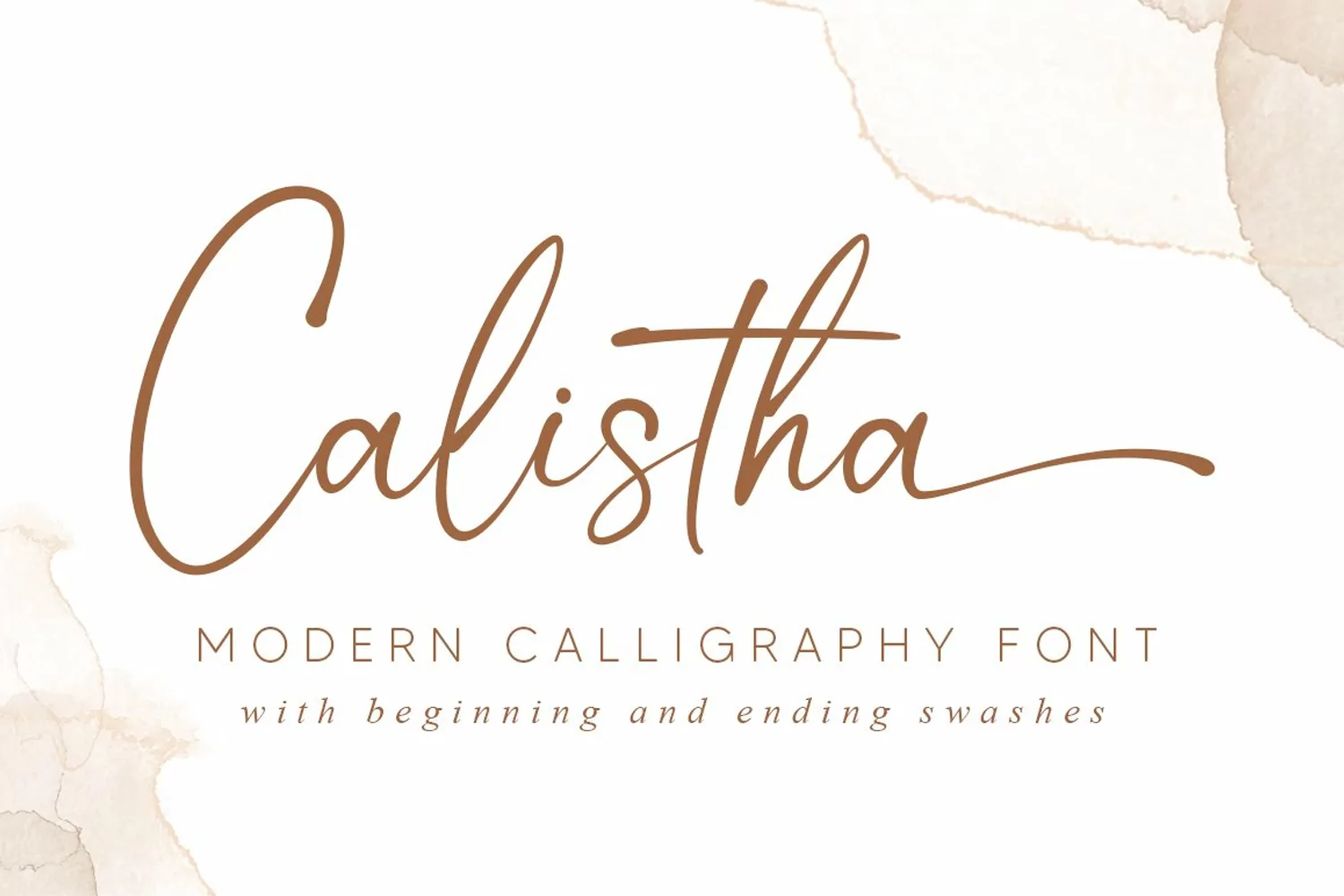
Calistha
Calistha is a thin lettered, lovely and fashionable script font. This font is PUA encoded which means you can access all of the glyphs and swashes with ease! Fall in love with its incredibly versatile style and use it to create spectacular designs!